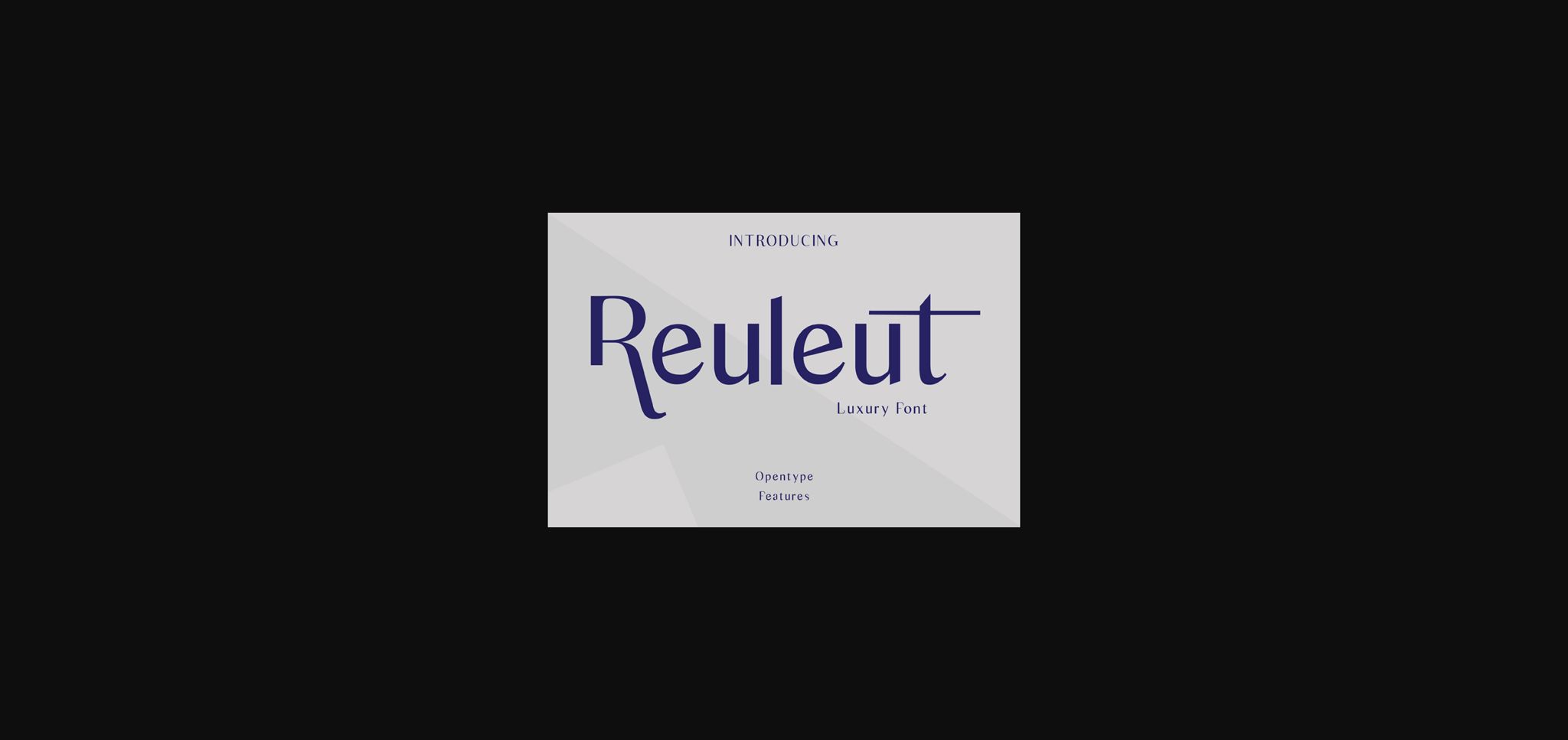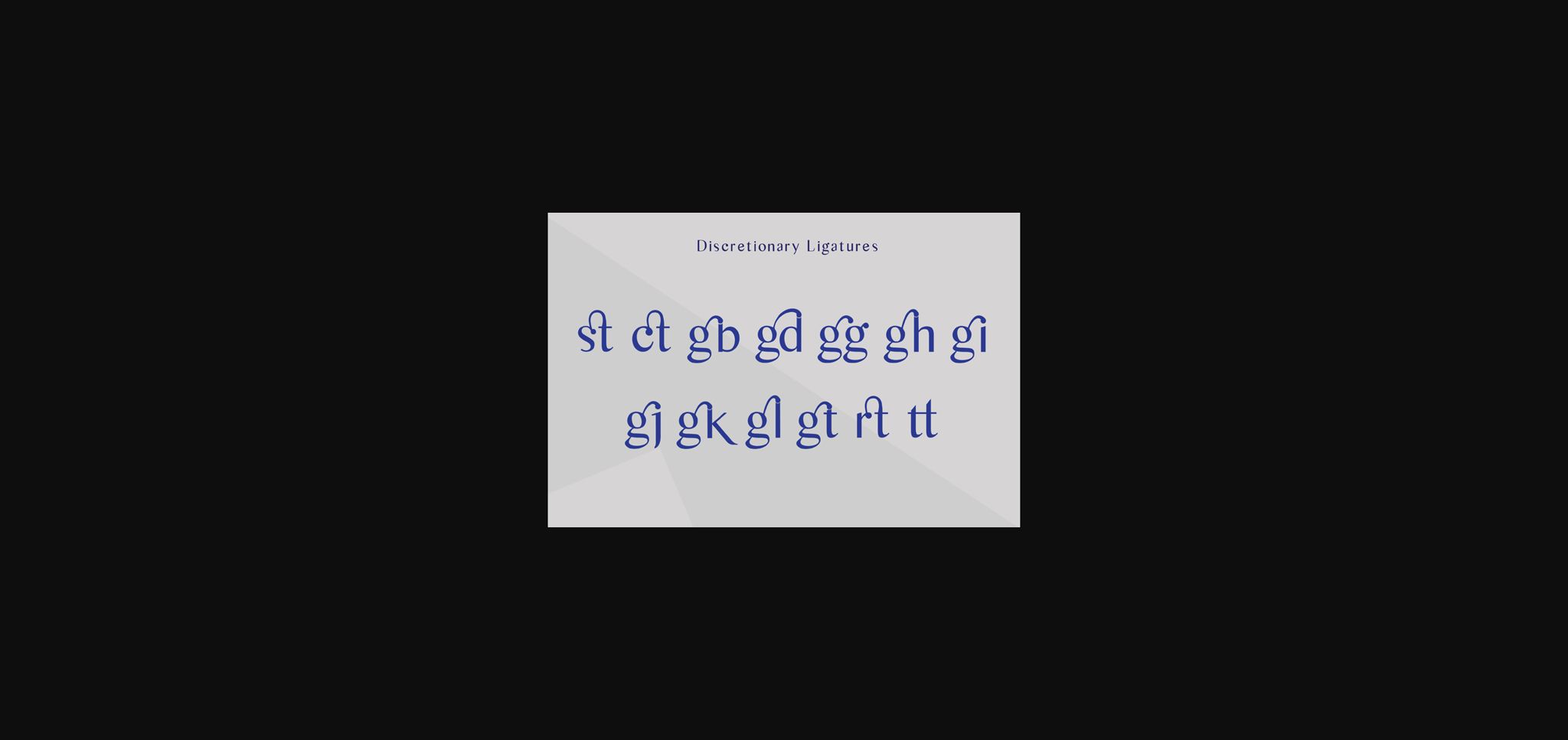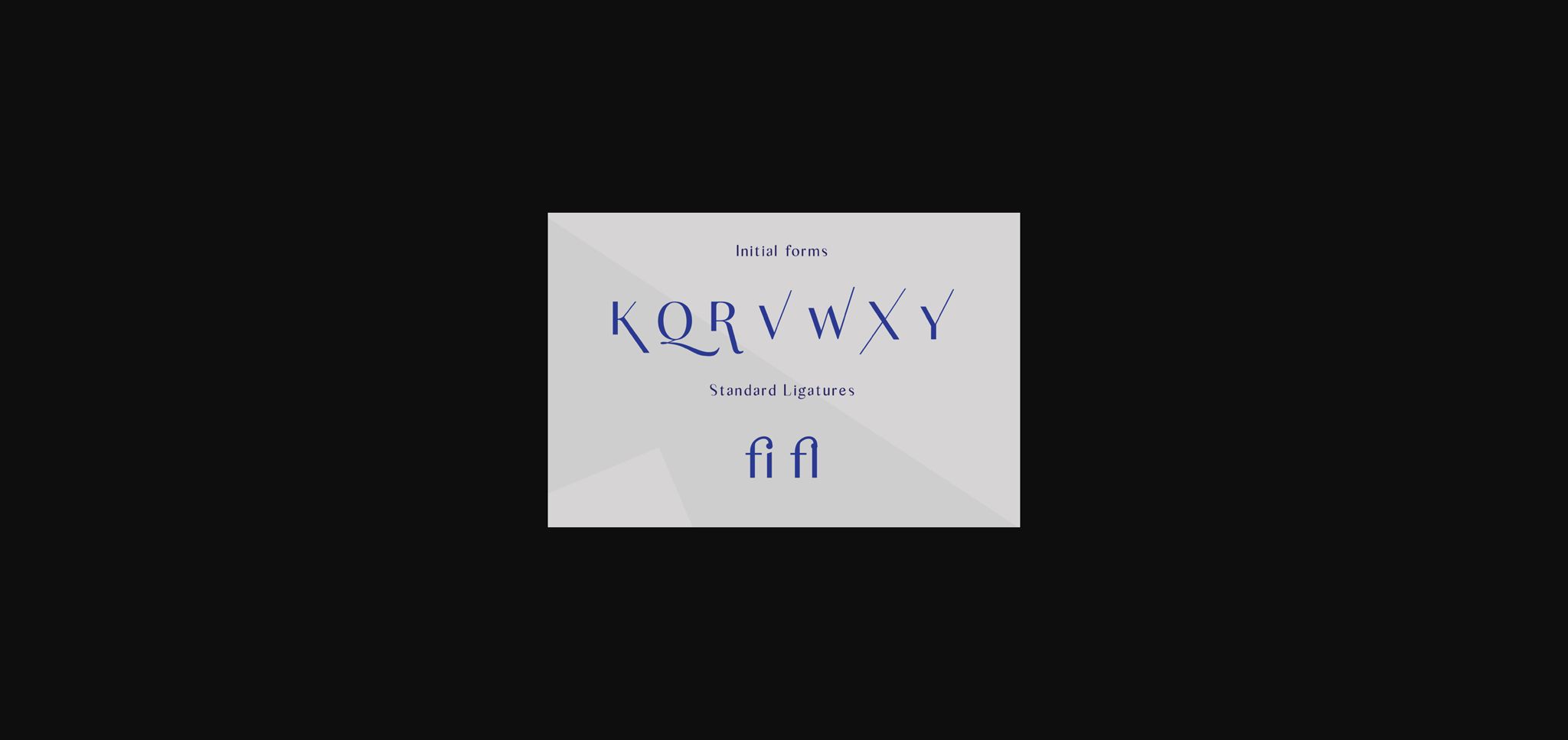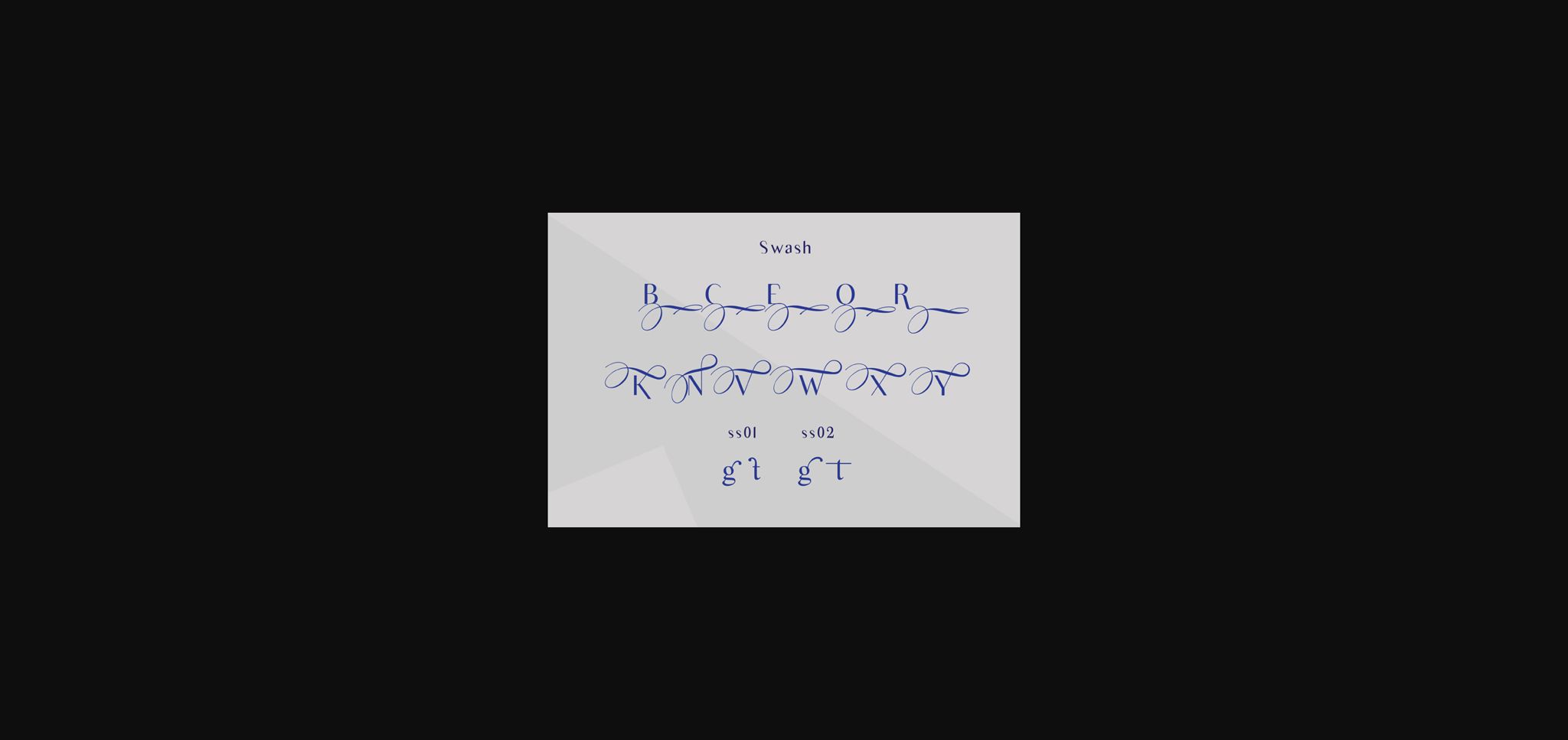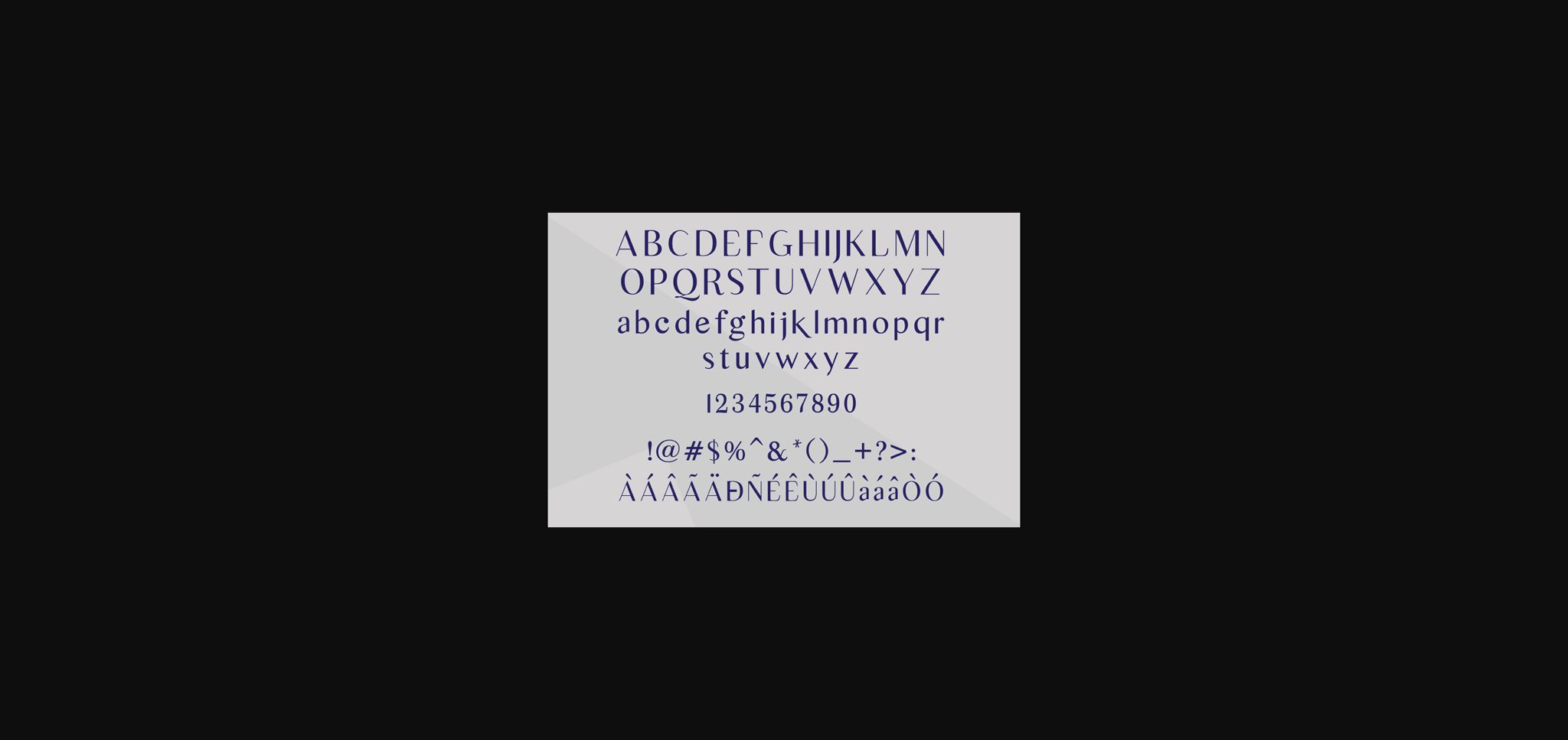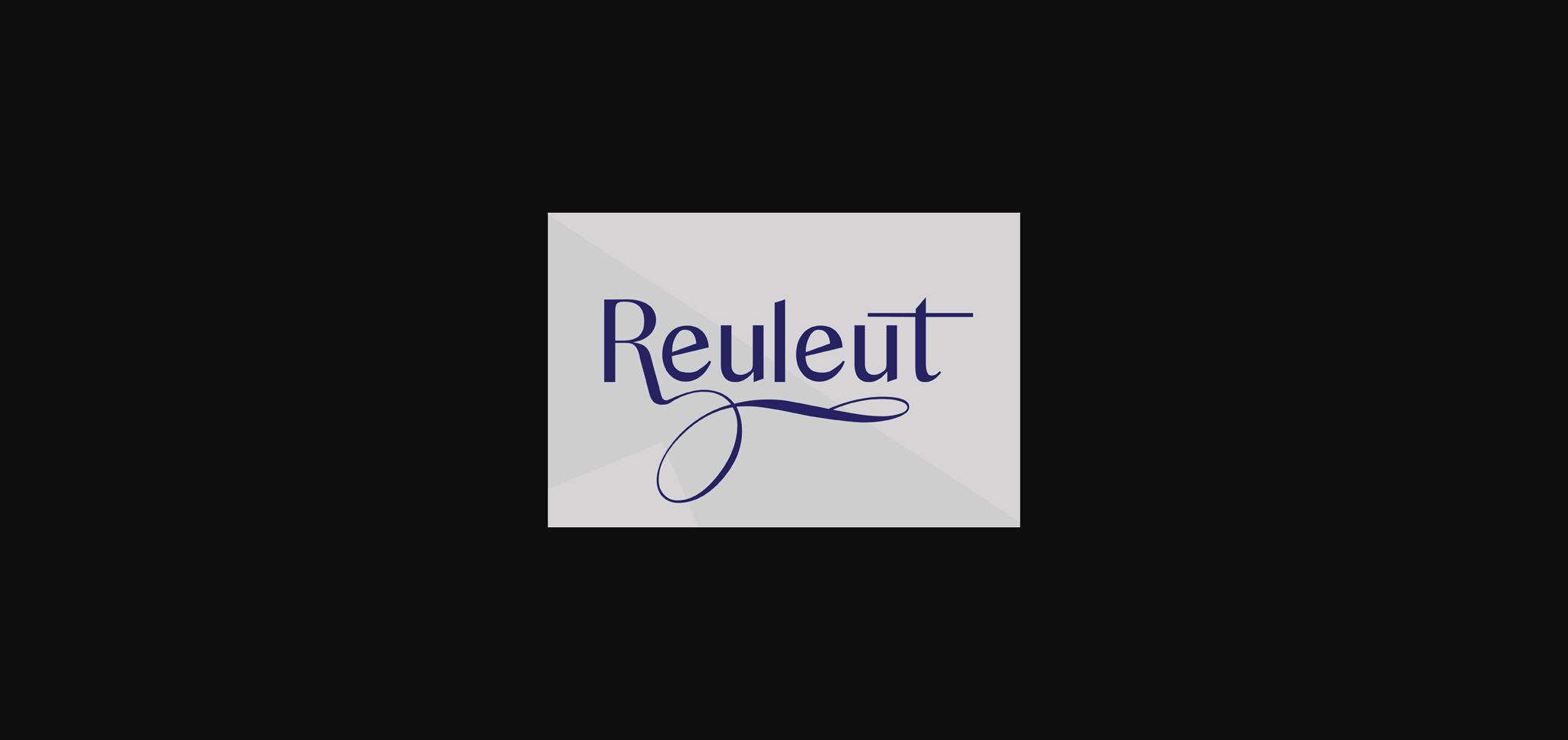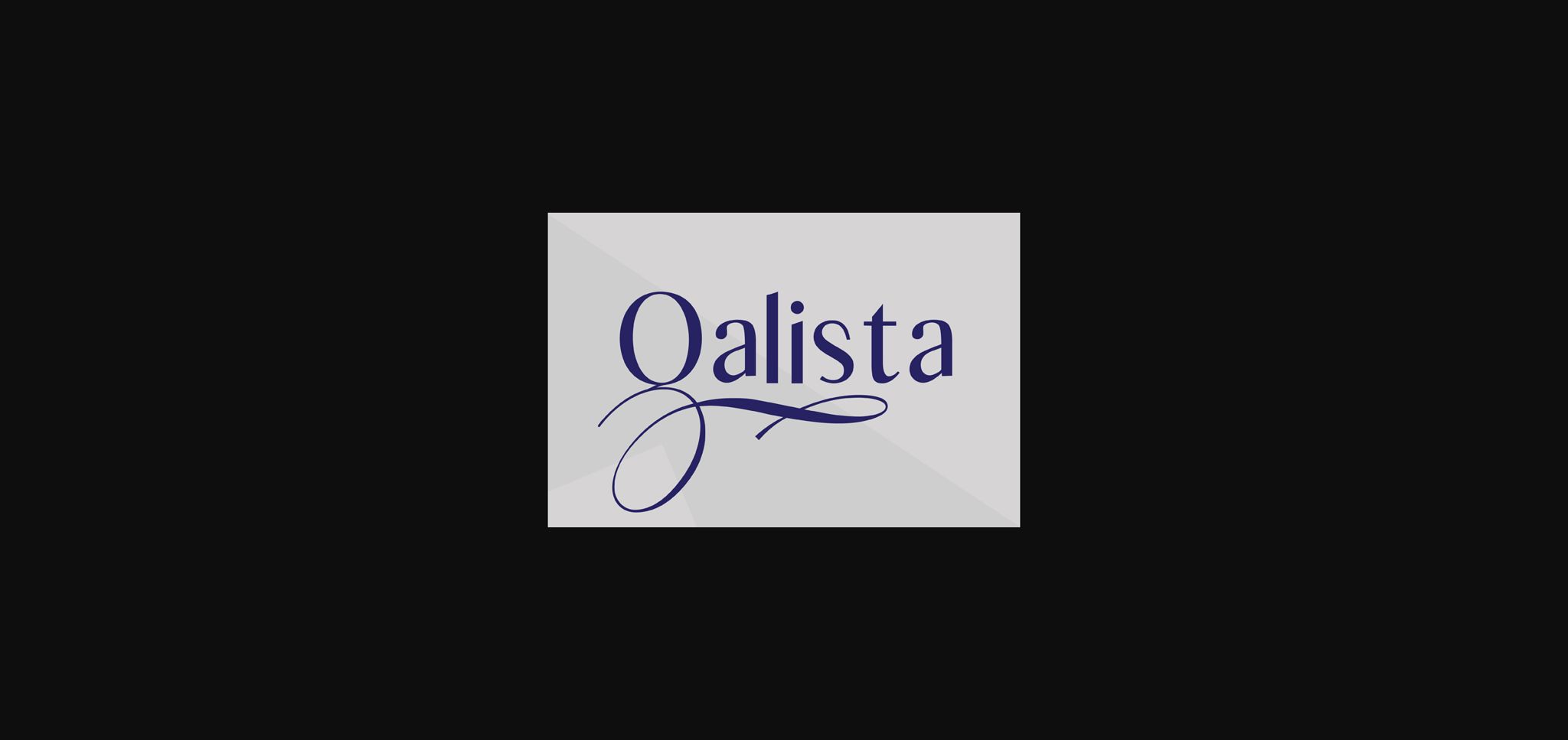
HomeSans Serif FontsReuleut Font Sans Serif Fonts Reuleut Font FacebookXPinterestWhatsApp 1 of 9 ... Reuleut Font Poster 2... Reuleut Font Poster 3... Reuleut Font Poster 4... Reuleut Font Poster 5... Reuleut Font Poster 6... Reuleut Font Poster 7... Reuleut Font Poster 8... Reuleut Font Poster 9... About Reuleut Font Reuleut is a luxurious sans serif font with beautiful swashes and ligatures. It will add a sophisticated touch to any crafting project. DOWNLOAD NOW People also explored Khotijah Font Montgo Font Patric Zihva Font Kadonk Kalimba Love Font Estefania Font Valentine Font Berak Font Restu Ibunda Font 440 0 TagsReuleutReuleut Font Previous articleRomeo FontNext articleLa Rouge Font LEAVE A REPLY Cancel reply Comment: Please enter your comment! Name:* Please enter your name here Email:* You have entered an incorrect email address! Please enter your email address here Website: Save my name, email, and website in this browser for the next time I comment. Personal Use Free Carrolina Personal Use Free Read more about this font Coolvetica Font Personal Use Free Read more about this font Unlock Endless Creativity with the FREE September Clipart Huge Bundle (Valued at $700!) Personal Use Free Read more about this font Shkoder 1989 Personal Use Free Read more about this font BLOG Fonts That Capture the Spirit of New York City New York City is more than just a place—it’s an experience, a rhythm, a visual language... Modern Sans-Serif Fonts That Brands Love in 2025 Top 7 Google Fonts Alternatives for Faster and Privacy-Friendly Web Design (2025) How to Install and Use Fonts on Windows, macOS, and Web Projects